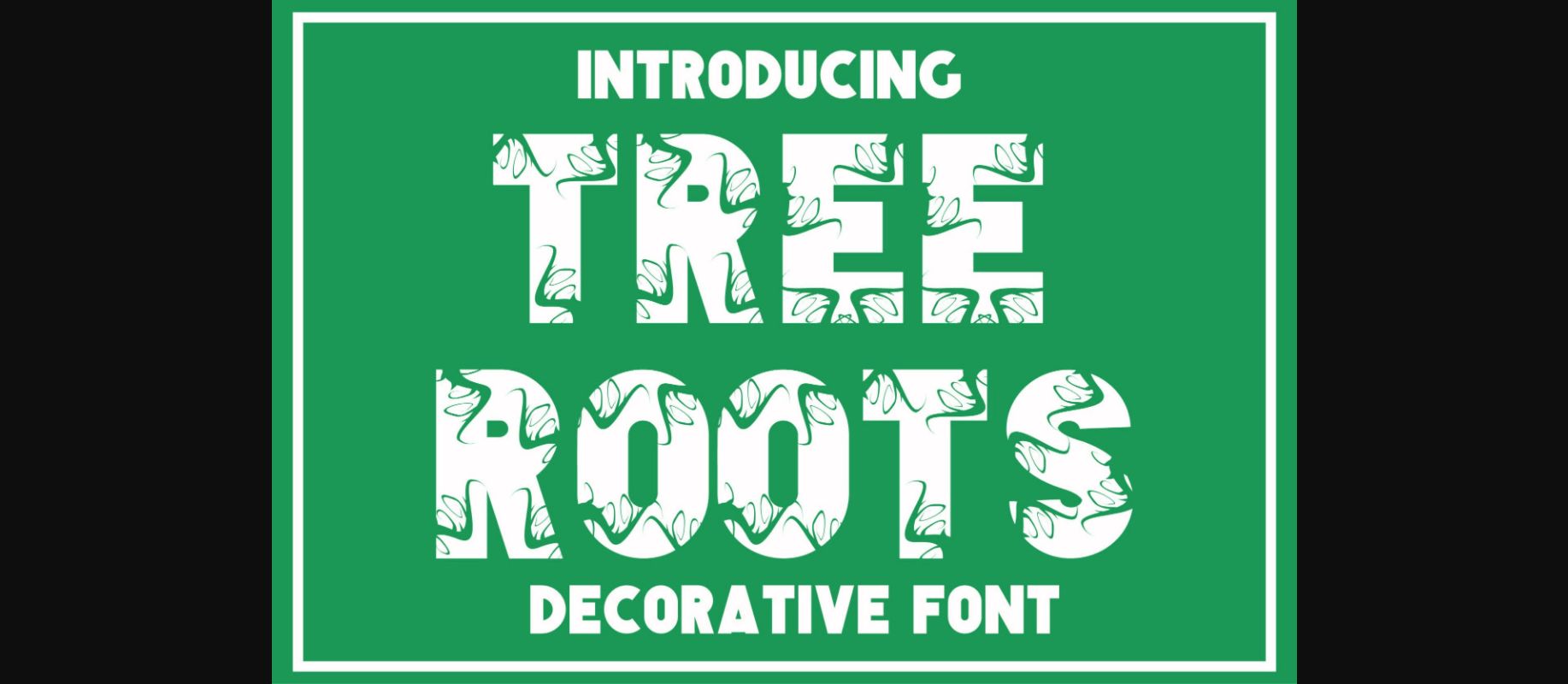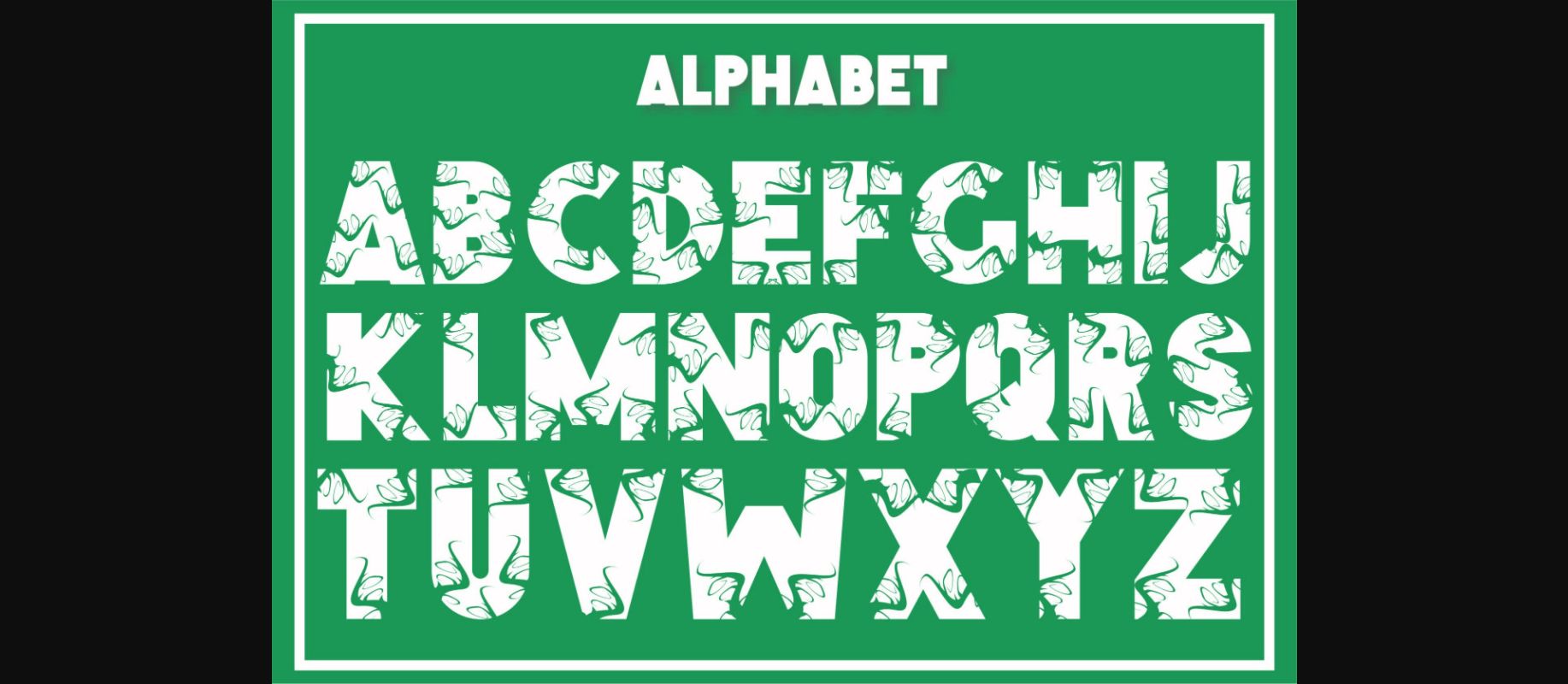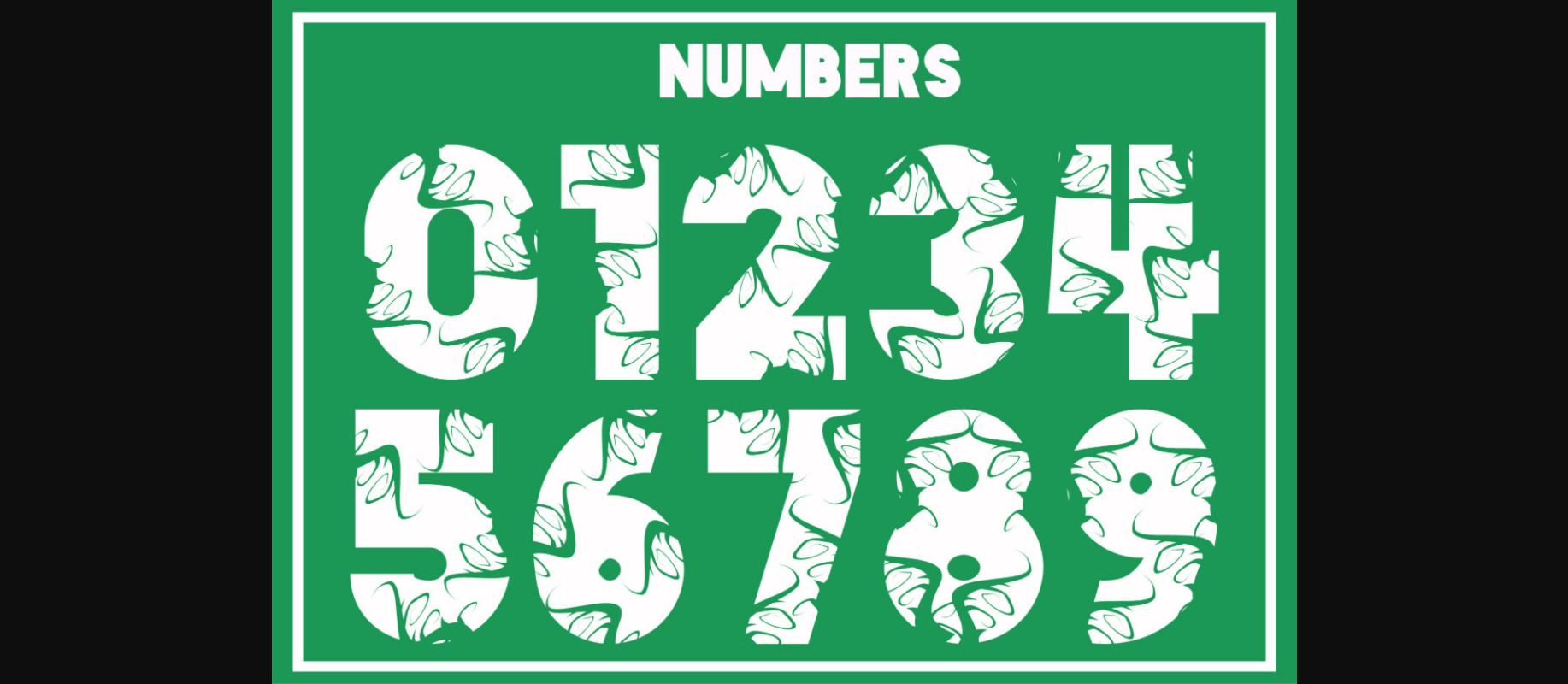
About Tree Roots Font
Tree Roots is a fresh and cool-looking decorative font. It can be used for a variety of design ideas that require a green, relaxed touch. Add it confidently to your favorite creations and let yourself be amazed by the outcome generated.